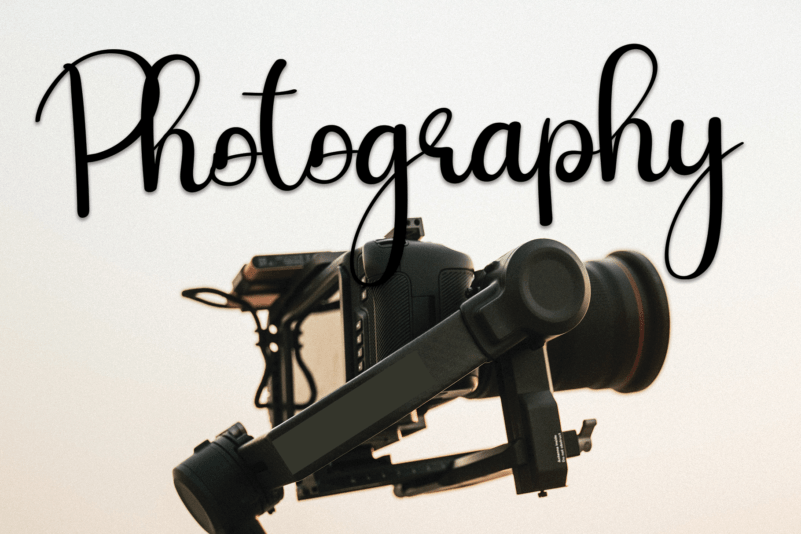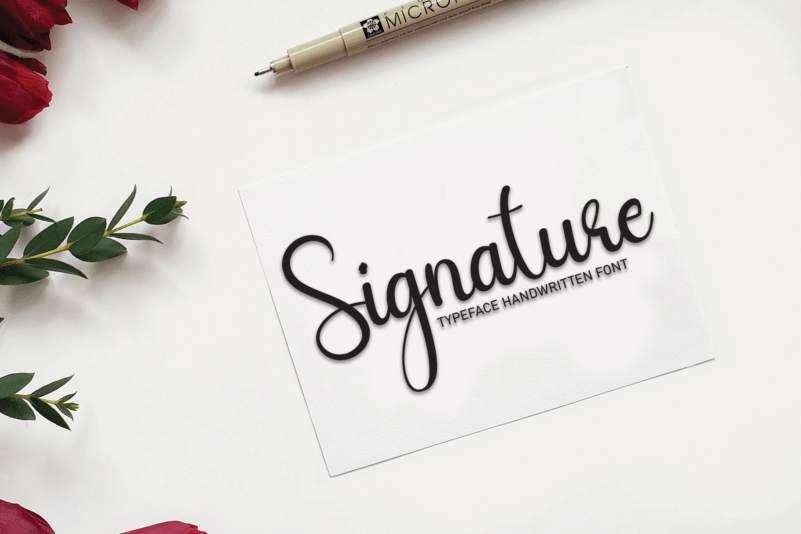
Baby Girls Font
Baby Girls Font is a sweet and friendly handwritten display font. Cute and fun, this font is ideal for writing wedding invitations, cards, or any other design that might need a playful touch!